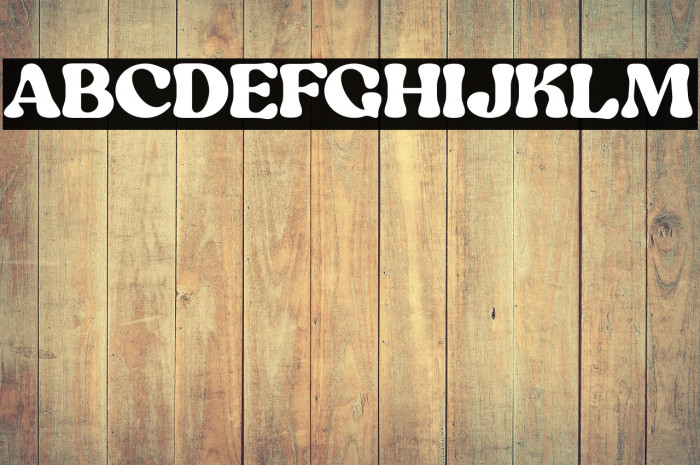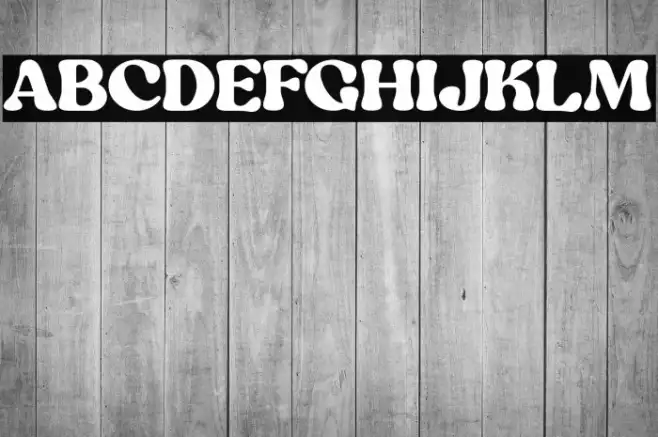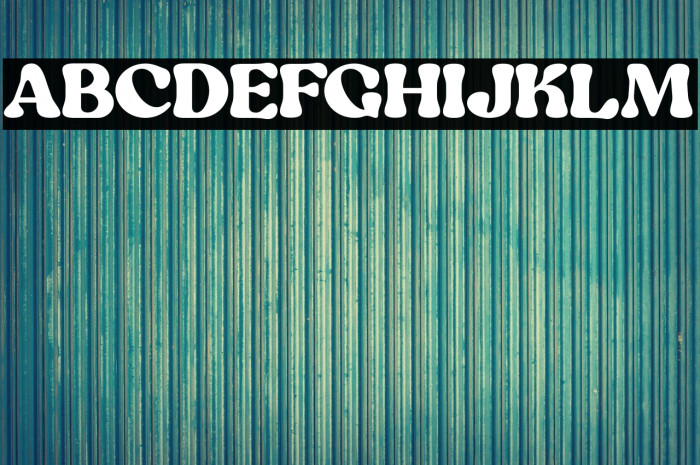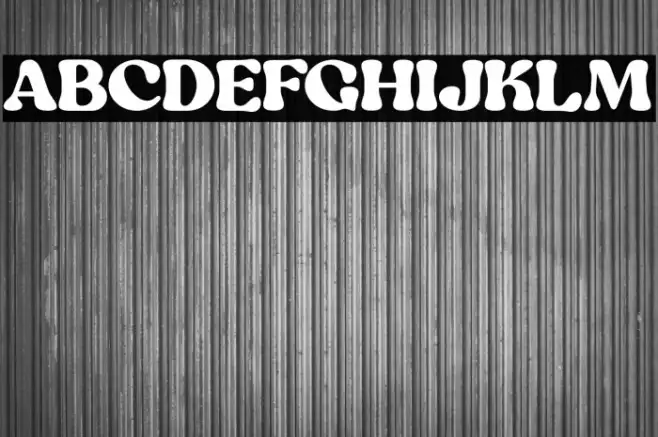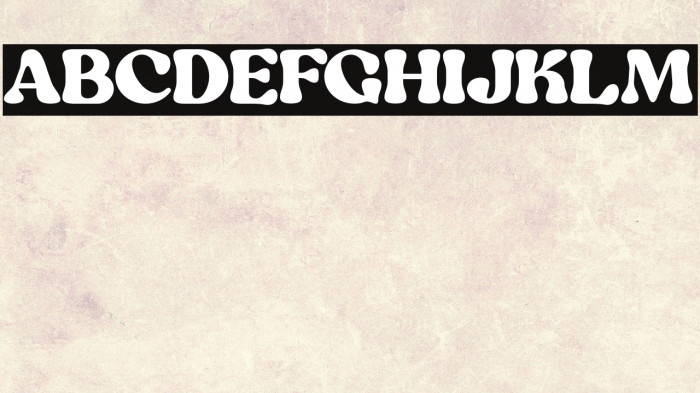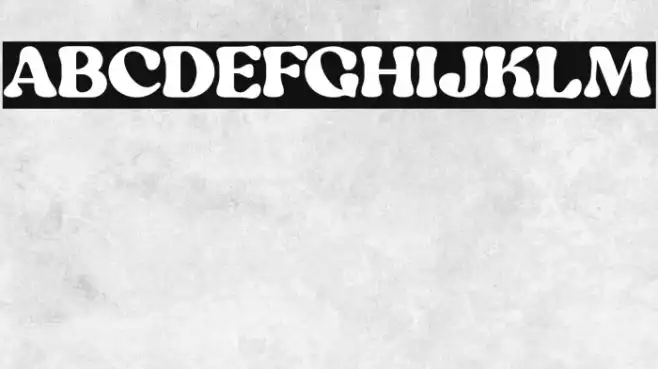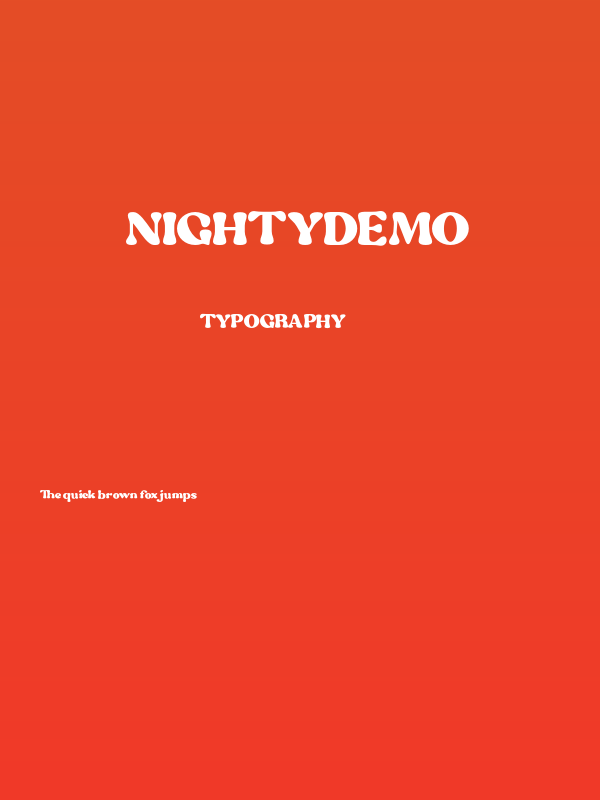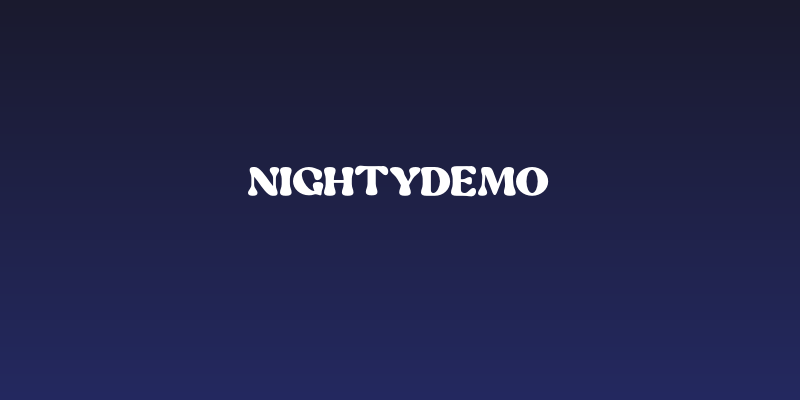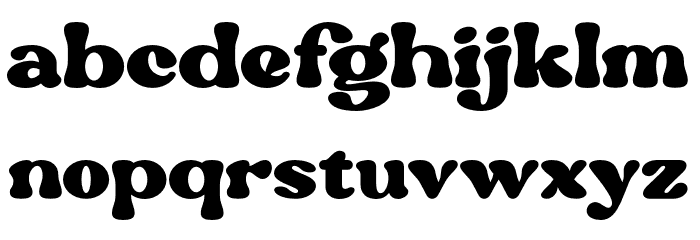
NightyDEMO Font
NightyDEMO Description
This font features a bold and playful design with thick, rounded strokes that give it a whimsical and friendly appearance. The characters are well-balanced, with a consistent weight throughout, creating a harmonious look. The rounded edges and smooth curves add a touch of softness, making it approachable and easy to read. The font's style is reminiscent of retro or vintage designs, yet it maintains a modern feel due to its clean lines and simplicity. It is particularly effective in capturing attention and conveying a sense of fun and creativity.
| Overall Style | Vintage, Modern |
| Proposed Projects | Ideal for children's books, playful branding, event posters, or any project needing a fun and approachable typeface. |